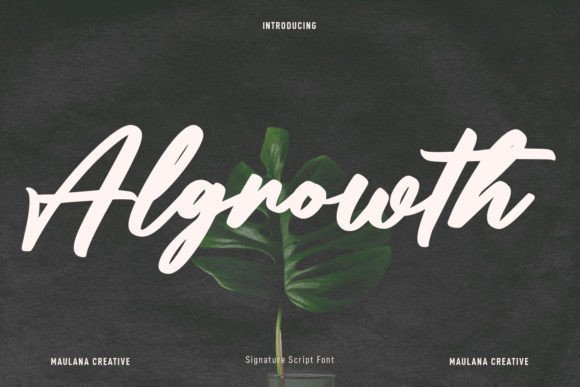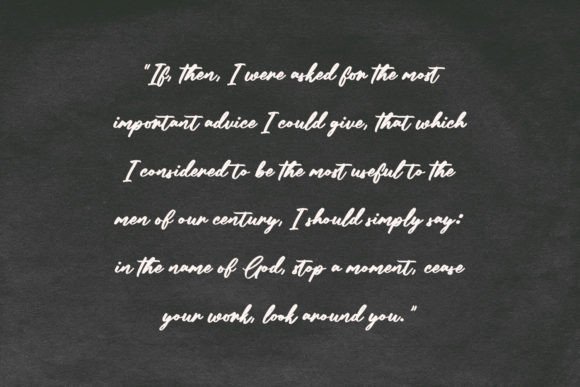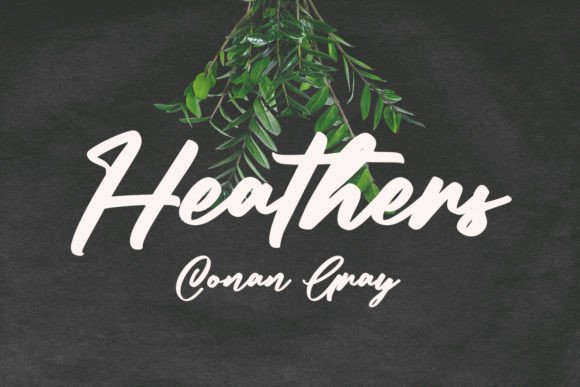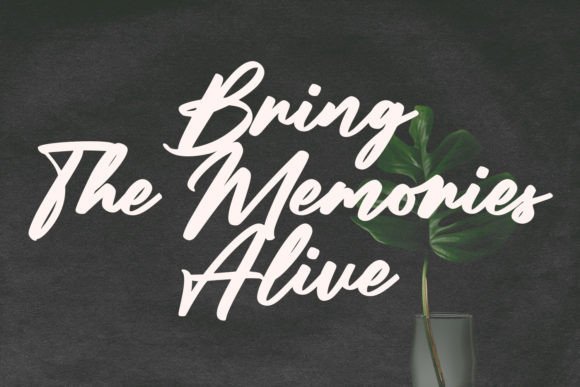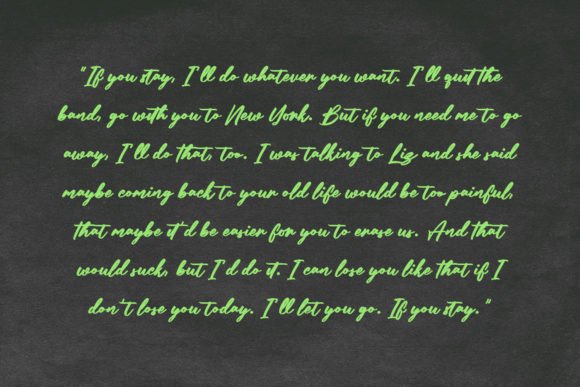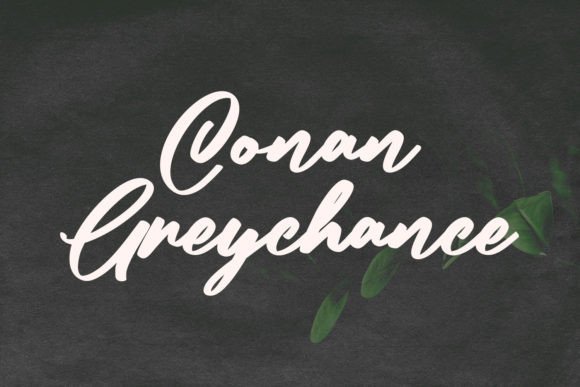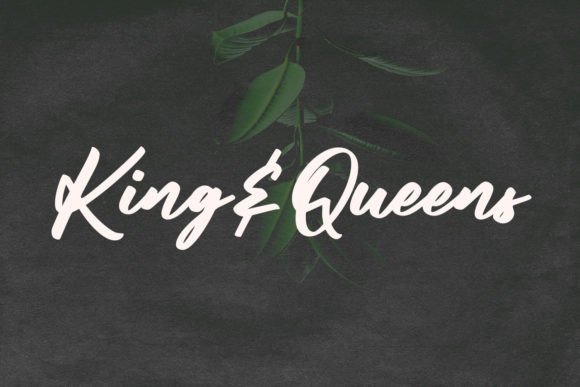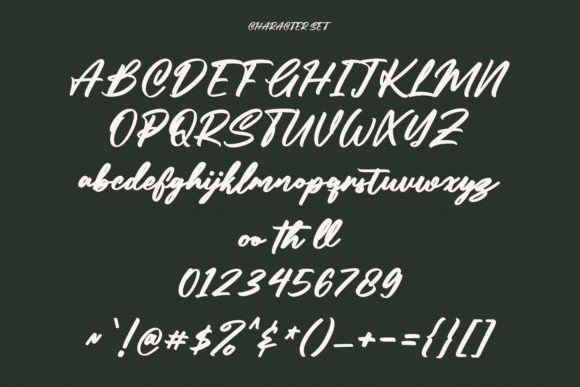
Algrowth Font
About Algrowth Font
Introducing “Algrowth” – Your Casual and Bold Script Font for Elevated Creations!
“Algrowth” is more than just a font; it’s a confident and bold script typeface that has the power to transform your design projects. Whether you’re working on branding, logos, posters, invitations, product packaging, or any creative endeavor, “Algrowth” is ready to become an invaluable asset in your font library.
With “Algrowth,” you have access to a font that effortlessly balances casual and bold elements. Its dynamic script style adds character to your text, making it the perfect choice for creating designs that stand out and make a lasting impression.
Imagine using “Algrowth” to craft memorable branding and logos, design eye-catching posters that command attention, create elegant invitations that set the tone for special events, or enhance product packaging with a bold and confident script font.
Whether you’re a seasoned designer seeking a font that exudes confidence and flair or someone who values the transformative power of typography, “Algrowth” is the typeface that can elevate your creations to new heights.